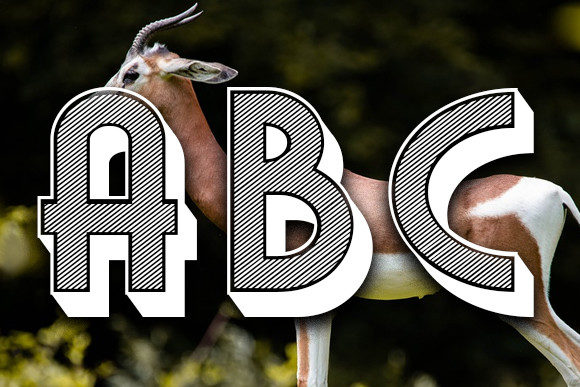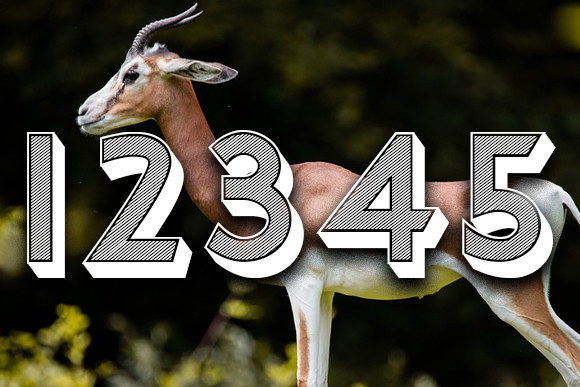
Introducing Gazelle Font: Elevate Your Designs with a Stunning 3D Display Font
Are you tired of using the same old fonts in your designs? Look no further! Gazelle Font is here to take your creative projects to the next level. This awesome 3D display font is designed to fit perfectly on each of your designs, offering endless possibilities for customization and creativity. In this article, we’ll dive into the world of Gazelle Font, exploring its features, benefits, and uses, as well as provide tips and inspiration for designers and crafters.
What is Gazelle Font?
Gazelle Font is a unique and stunning 3D display font that can add a touch of elegance and sophistication to any design. Its sleek and modern design makes it perfect for a wide range of projects, from branding and advertising to packaging and digital media. With Gazelle Font, you can create eye-catching headlines, titles, and captions that will grab the attention of your audience and leave a lasting impression.
Key Features of Gazelle Font
- 3D Display Font: Gazelle Font is a 3D display font that offers a unique and eye-catching design.
- Endless Variations: With Gazelle Font, you can experiment with different styles, colors, and textures to create a look that’s all your own.
- High-Quality Design: Gazelle Font is designed with high-quality and precision, ensuring that it looks great in any size or resolution.
Benefits of Using Gazelle Font
So, why should you choose Gazelle Font for your designs? Here are just a few benefits of using this amazing font:
- Adds Visual Interest: Gazelle Font adds a touch of visual interest to any design, making it perfect for headlines, titles, and captions.
- Enhances Branding: With Gazelle Font, you can create a unique and memorable brand identity that will stand out from the crowd.
- Increases Engagement: Gazelle Font is designed to grab attention and increase engagement, making it perfect for advertising, marketing, and promotional materials.
- Versatile: Gazelle Font can be used in a wide range of projects, from digital media to print materials.
Tips for Using Gazelle Font
Here are a few tips for using Gazelle Font in your designs:
- Experiment with Colors: Try out different colors and textures to create a unique look that’s all your own.
- Play with Size: Experiment with different font sizes to create visual interest and hierarchy.
- Combine with Other Fonts: Pair Gazelle Font with other fonts to create a unique and memorable design.
- Use in Headlines and Titles: Use Gazelle Font in headlines and titles to grab attention and add visual interest.
Need some inspiration for using Gazelle Font? Here are a few ideas to get you started:
- Branding and Advertising: Use Gazelle Font to create eye-catching logos, ads, and promotional materials.
- Packaging Design: Add a touch of elegance and sophistication to your packaging designs with Gazelle Font.
- Digital Media: Use Gazelle Font in your digital media projects, such as videos, animations, and social media graphics.
- Crafting and DIY: Use Gazelle Font to create custom signs, banners, and decorations for your crafting and DIY projects.
In conclusion, Gazelle Font is an awesome 3D display font that can elevate your designs to the next level. With its sleek and modern design, endless variations, and ease of use, Gazelle Font is perfect for designers and crafters of all levels. Whether you’re looking to add visual interest, enhance your branding, or increase engagement, Gazelle Font is the perfect choice. So why wait? Download Gazelle Font today and start exploring its endless possibilities!